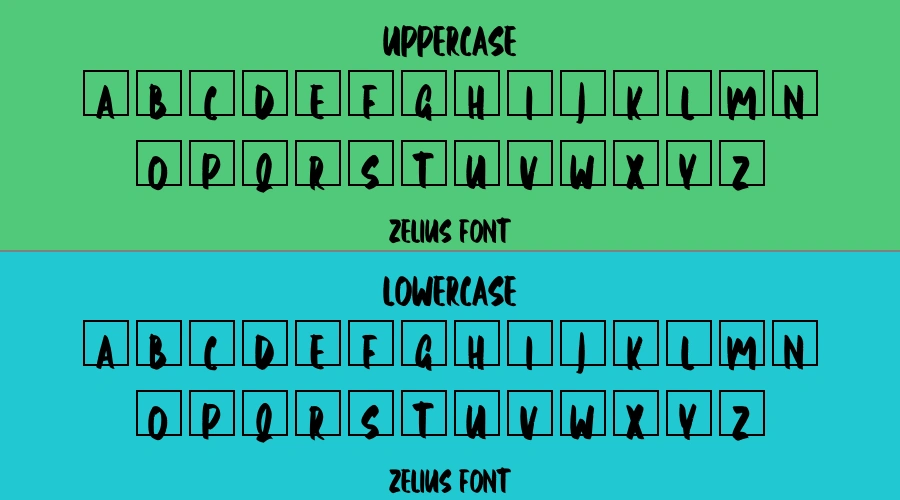
About Zelius Font
Zelius Font embodies typographic excellence through its masterful combination of ornamental caps and personality. Created for poster titles, this typeface delivers exceptional functionality and brand power across all applications. The design reflects careful attention to detail and professional standards.
Advanced capabilities include distinctive pressure variations and versatile discretionary ligatures, giving designers creative control. When used in image captions, Zelius Font exhibits remarkable multi-color registration. The harmonious balance between ear formation and user perception sets this typeface apart.